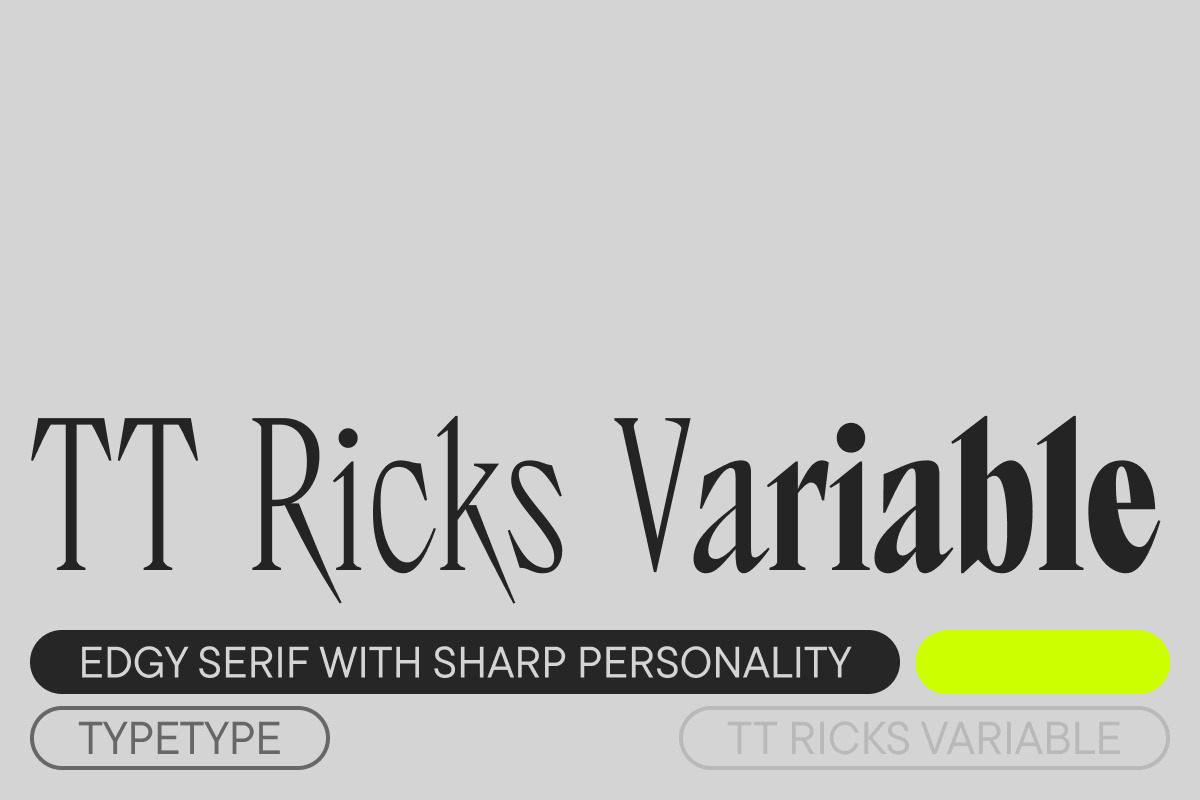
TT Ricks Variable
TT Ricks is an edgy serif inspired by 1892's De Vinne, reimagined with a bold new personality. It combines high contrast, dense spacing, and narrow letterforms with thorn-like serifs. The Regular style is sharp and spiky, while the Bold adopts a sturdy, Gothic-inspired solidity—a dynamic fusion of historical roots and modern rebellion.